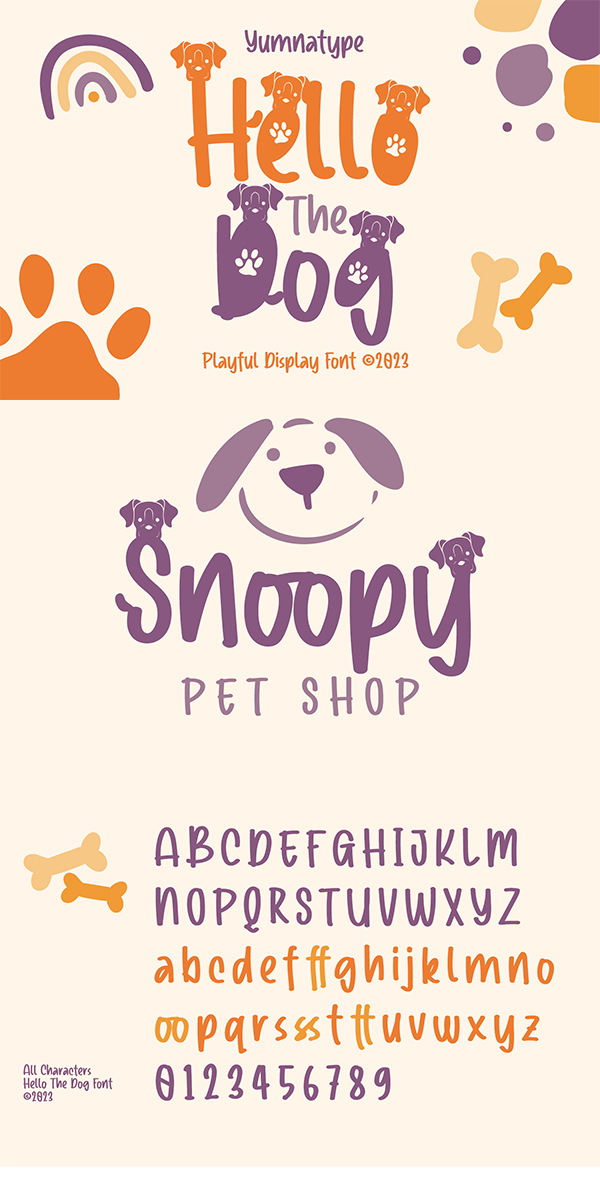
Hello The Dog Font
About Hello The Dog
Hello the Dog is a display font with cute, charming characters inspired by a dog theme. All of its letters and characters are created in a cute way that portrays a dog’s characteristics, such as long ears, big eyes, and a cute nose. It has various sizes and variations ranging from uppercases for title displays and lower cases for softer text displays. Hello the Dog font, of which available features and a clipart bonus you can enjoy, will live up and charm your designs in order to attract the audience with the theme you have. In fact, it will also help you build up your brand identity to be unique and memorable, particularly brands related to dogs or pets.
Hello the Dog fits best for various design projects, such as brandings, headings, magazine covers, quotes, printed products, merchandise, social media, etc. Find out more ways to use this font by taking a look at the font preview.